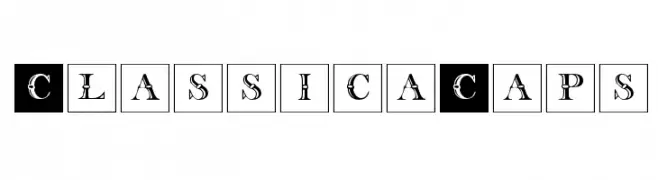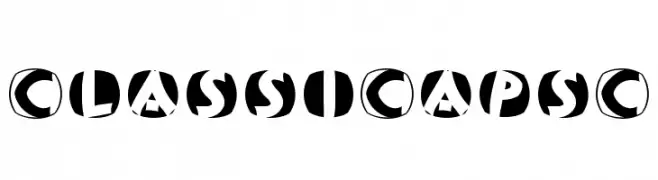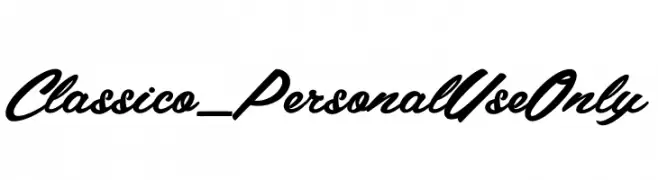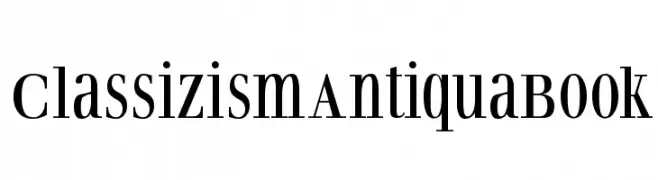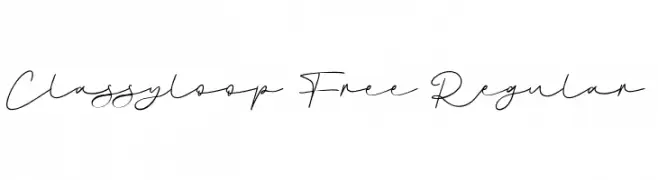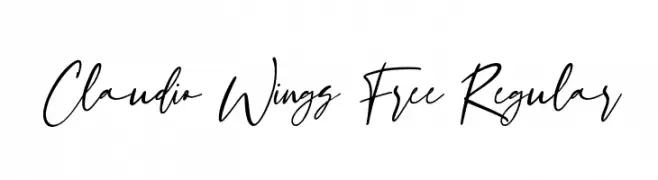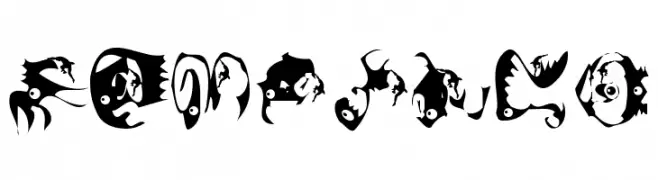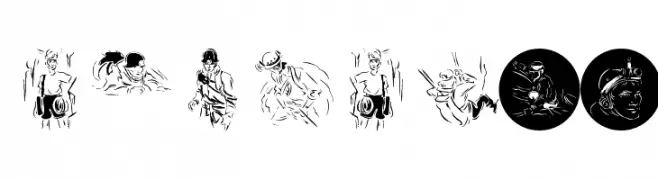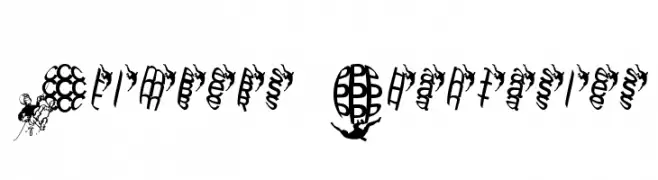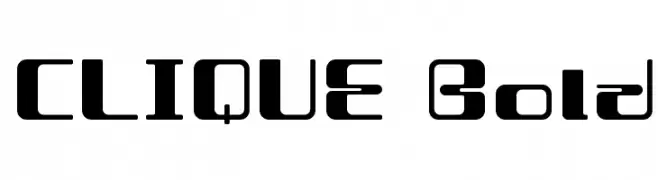
A whimsical, circus-themed font with characters in starburst shapes.
A playful handwritten font with tall, narrow letters and a whimsical style.
A dynamic and elegant script font with a modern, handwritten style.
Bold, clear, and highly legible font ideal for public signage.
Elegant cursive script font.
A futuristic and geometric font with sharp angles and rounded edges.
An elegant and flowing script font with intricate, high-contrast letterforms.
An elegant script font with fluid, cursive strokes and refined contrast.
A bold, decorative font with uppercase letters in framed squares.
A bold, circular font with high contrast and modern style.
A dynamic and flowing script font with elegant, cursive letterforms.
Illustrative dingbat font with classical antiquity themes.
A classic, elegant font with intricate serifs and a Roman inscription style.
A classic serif font with elegant lines and medium contrast, perfect for traditional and versatile uses.
An elegant italic font with a modern, fluid style.
A sophisticated and elegant font with modern and classic elements, featuring tall, slender forms and sharp serifs.
A graceful, cursive font with interconnected letters and a handwritten feel.
A dynamic, expressive script font with fluid, cursive strokes and elegant flourishes.
A whimsical, bold handwritten font with a playful and dynamic style.
A dynamic, expressive handwritten font with fluid strokes and a lively character.
A decorative Blackletter font with intricate, medieval-style letterforms.
( Clickuper is a free multilingual display typeface with sharp look. )
A bold, geometric font with sharp angles and a strong presence.
A whimsical and decorative font with intricate, fantastical designs in each character.
Illustrative display font featuring climbers and mountaineering scenes.
Illustrative dingbat font depicting climbers in various poses.
A decorative font featuring climbers and intricate patterns within circular shapes.
A bold, playful font with rounded edges and a slightly condensed style.
A modern, tech-inspired font with geometric shapes and clean lines.
A bold, futuristic font with geometric shapes and a modern aesthetic.
An elegant, flowing script font with a natural handwriting style.
A bold, angular font with a modern, geometric style.
An ornate blackletter font with intricate, medieval-inspired letterforms.
Whimsical, abstract dingbat font with faces, eyes, and geometric motifs.
Hand-drawn decorative font with clothing illustrations as characters.